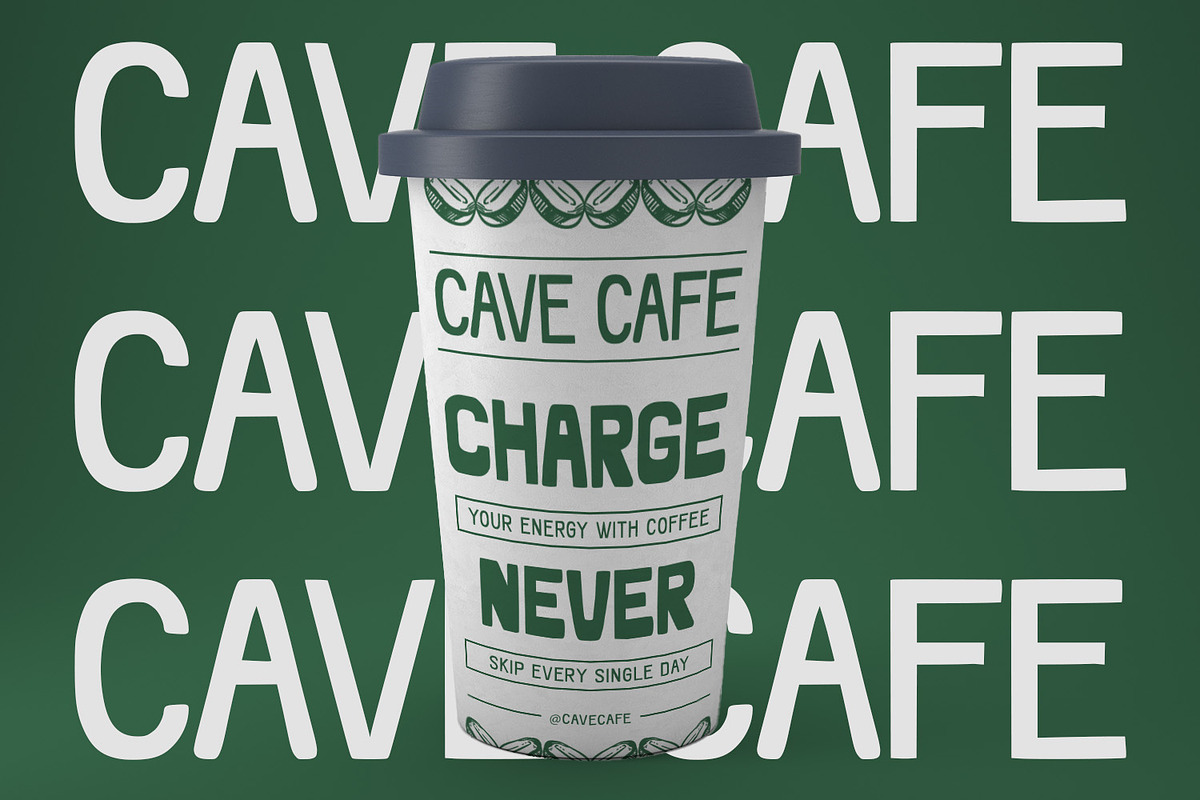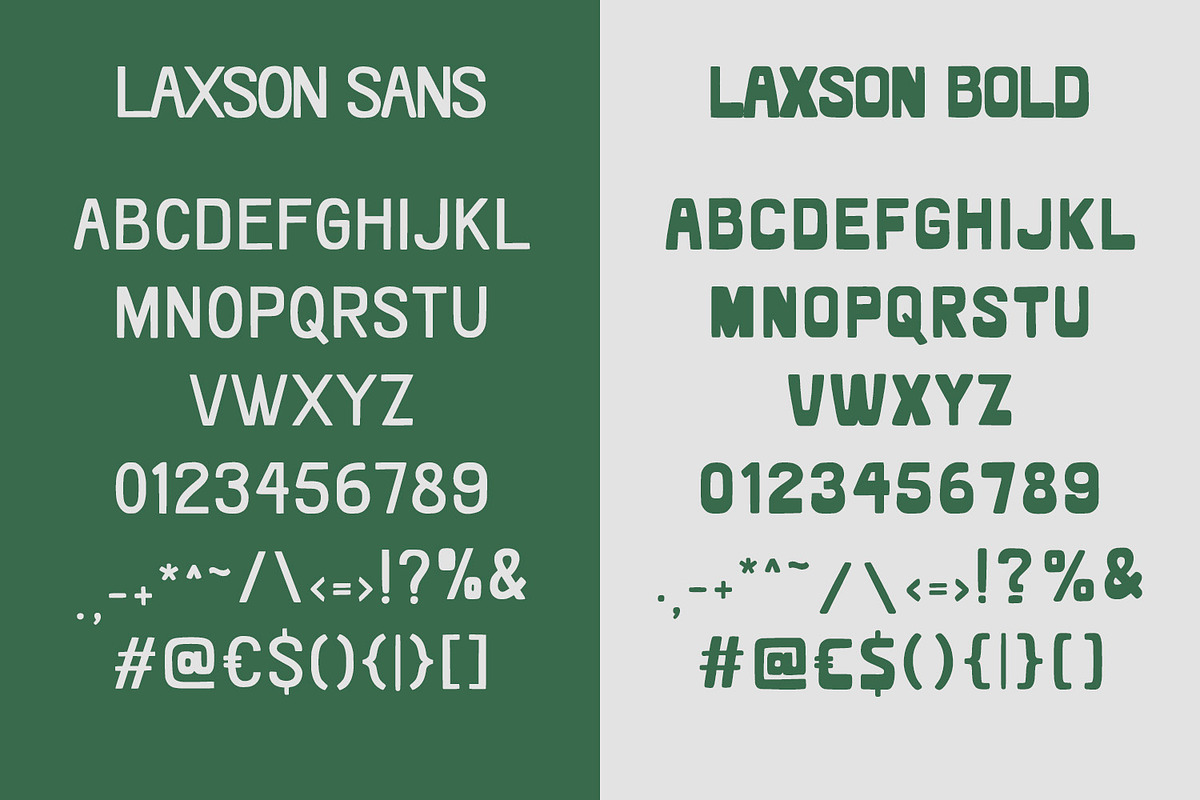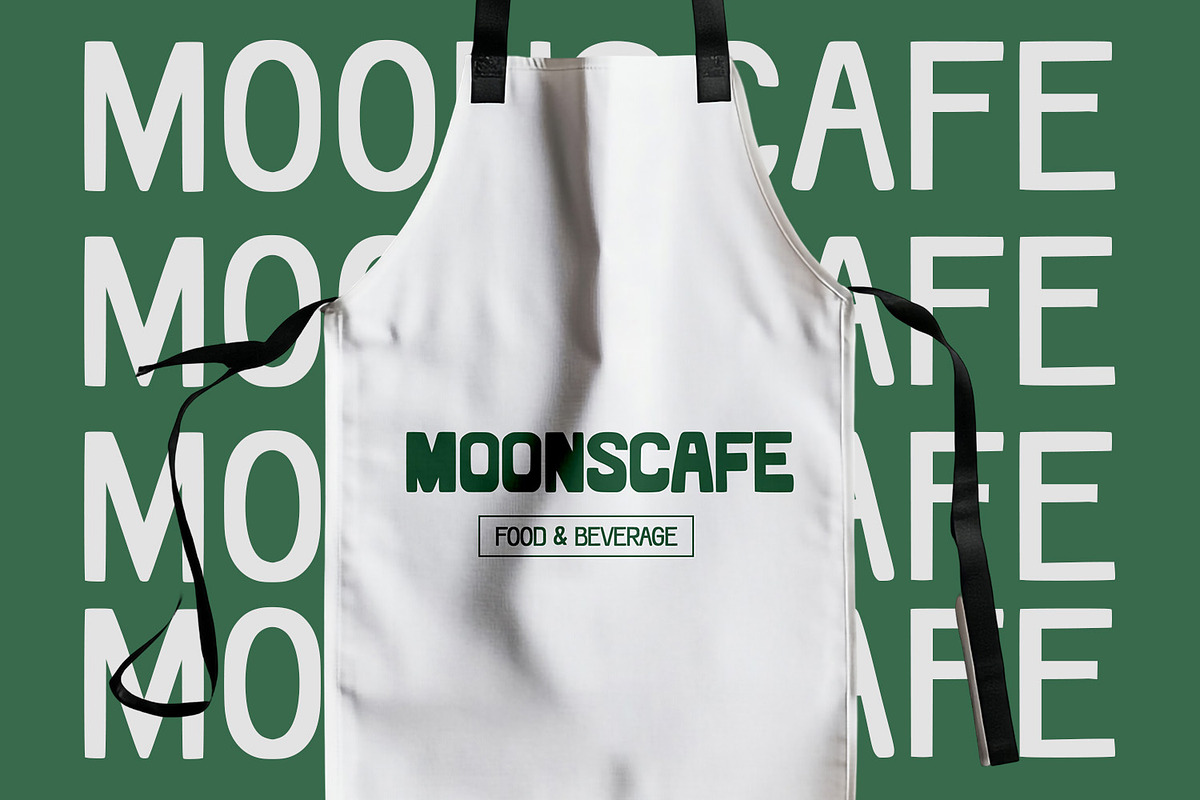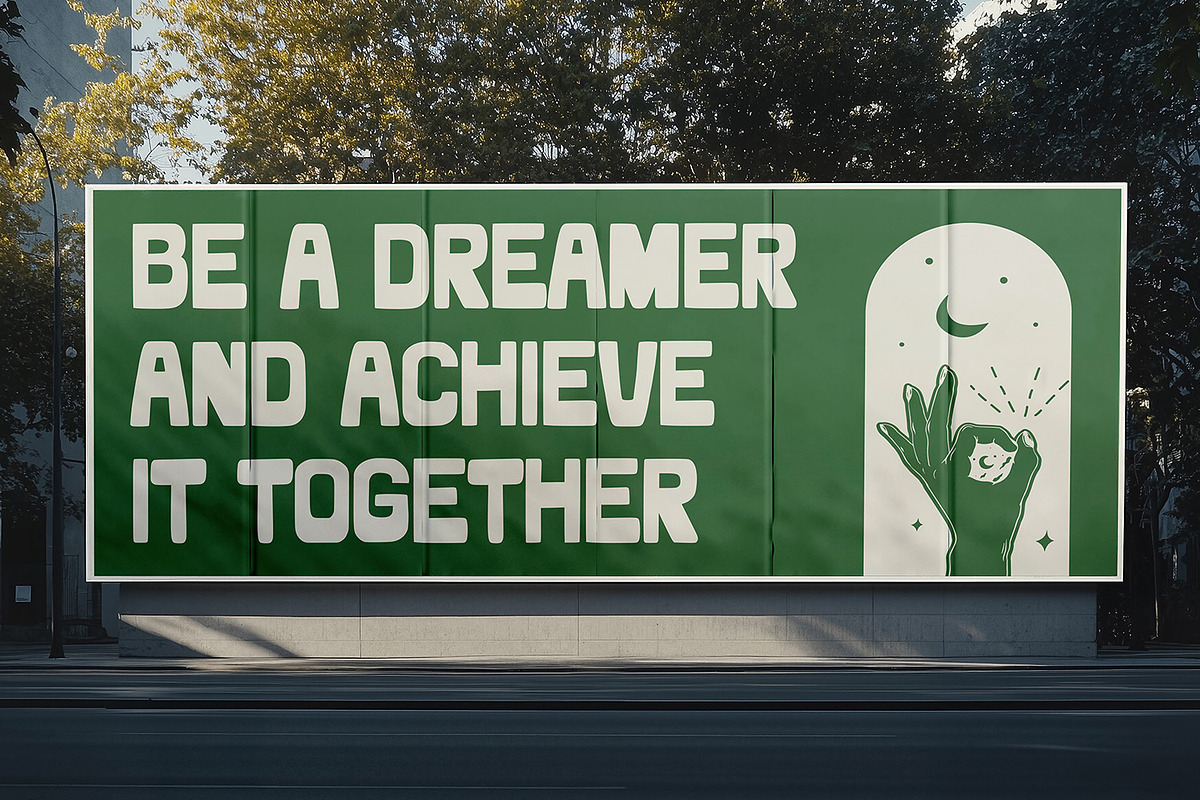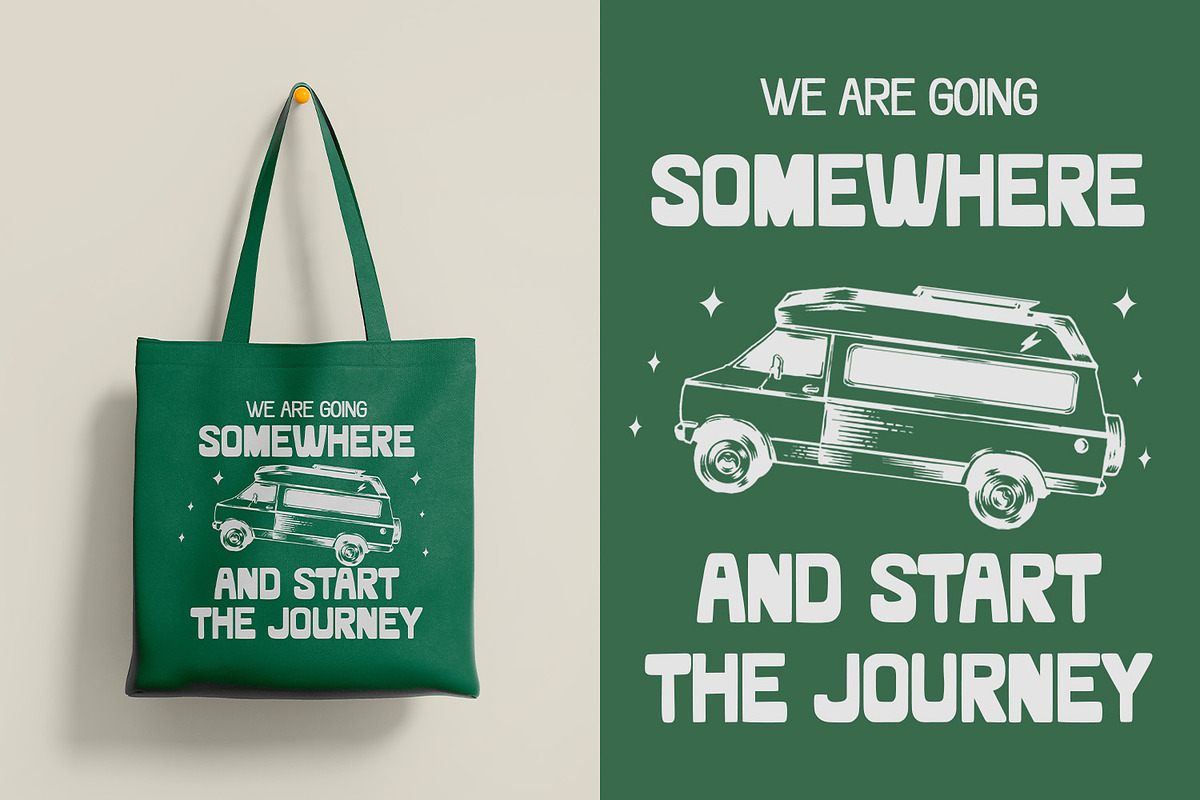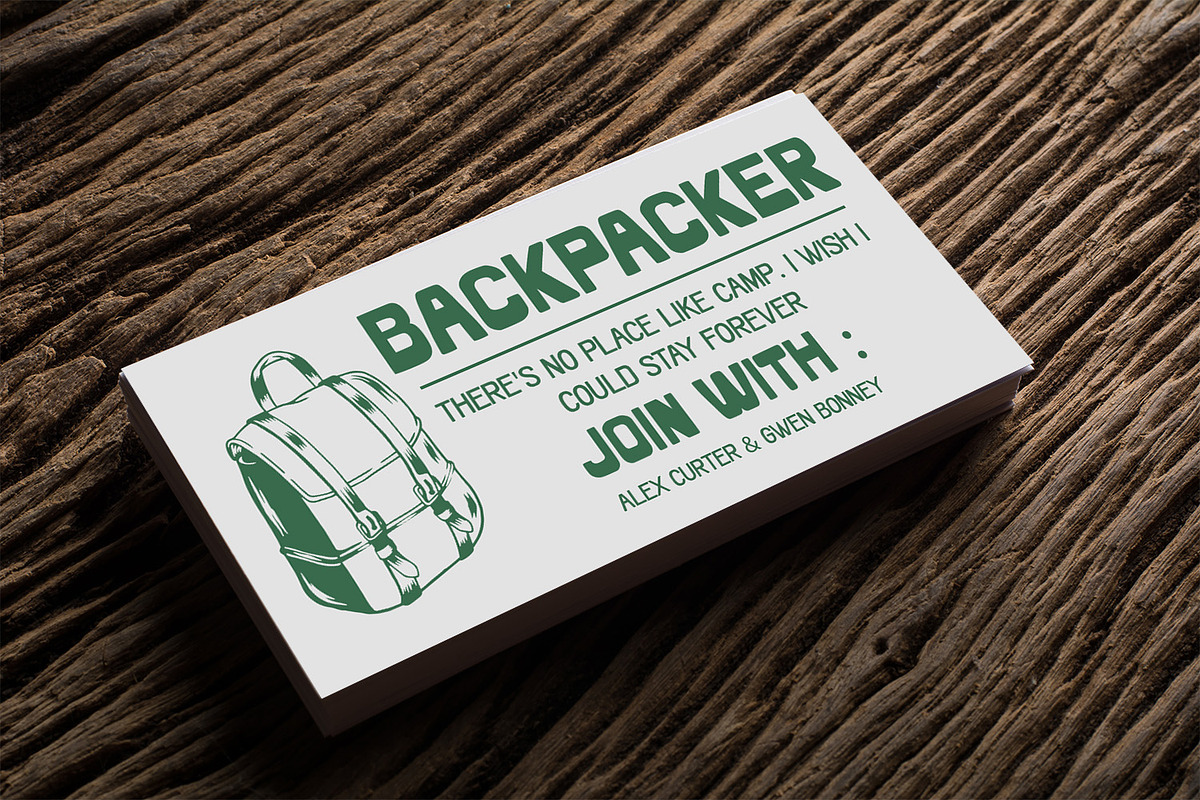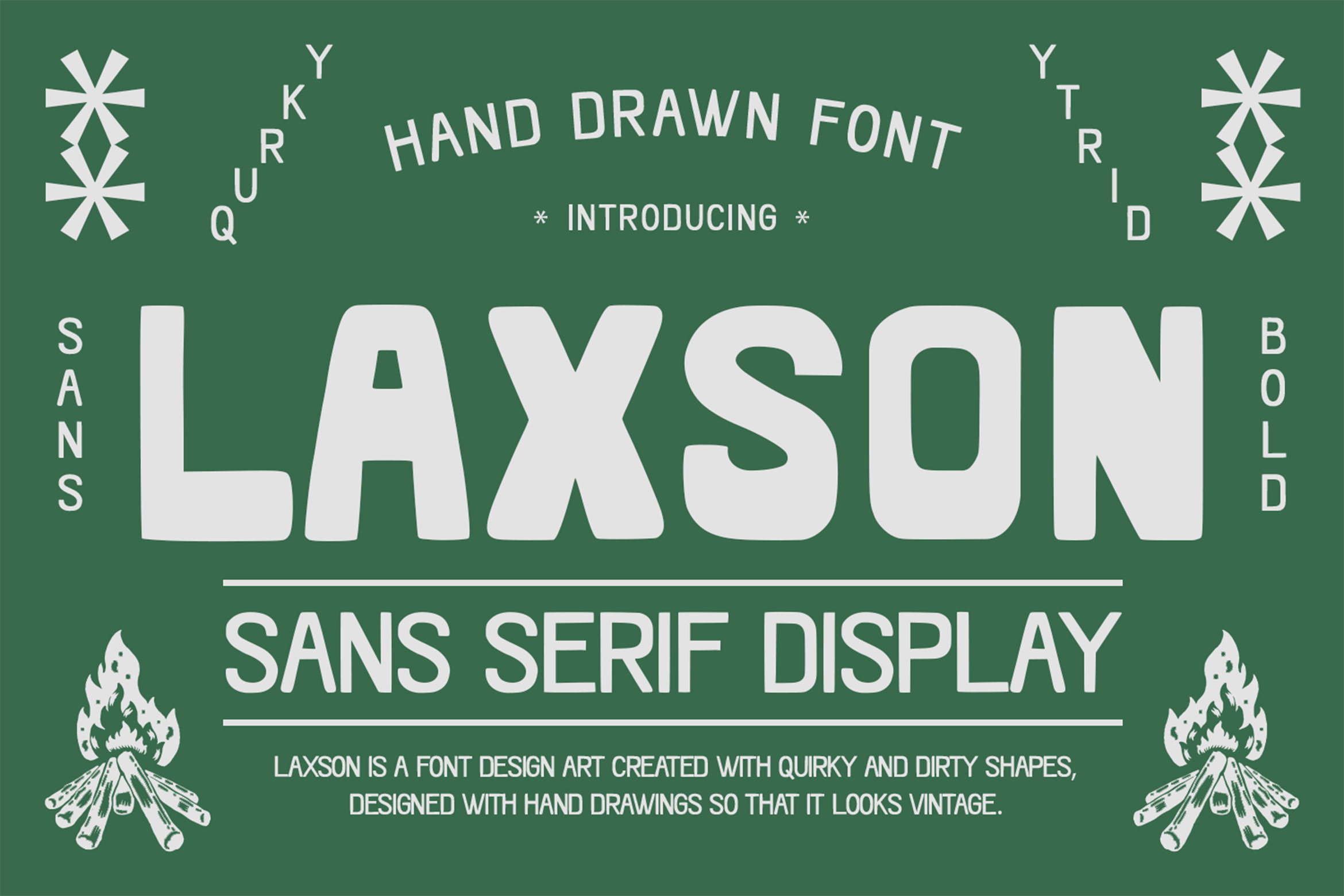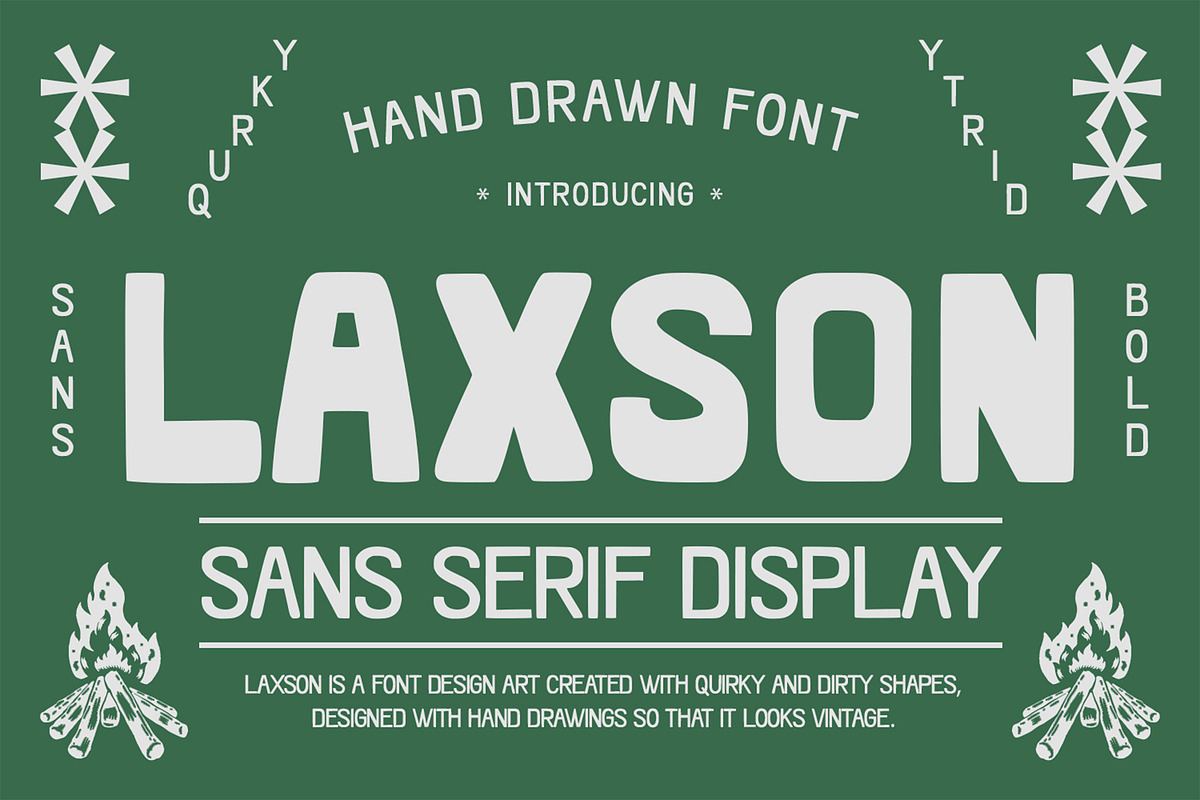
Laxson Typeface
Font Description: Laxson
Laxson is a vintage sans-serif hand-drawn font that blends the raw charm of mid-20th-century signage with the organic imperfections of hand-painted lettering. Inspired by the bold, no-nonsense typography of old storefronts and industrial labels, Laxson features uneven strokes, subtle ink bleeds, and a slightly weathered texture—as if each character was hastily brushed onto wood or metal.
With its rugged yet refined aesthetic, Laxson strikes a balance between utilitarian clarity and artisanal warmth. The font’s deliberate irregularities (like wobbled lines and skewed angles) mimic the human touch of a sign painter’s brush, while its clean sans-serif structure ensures legibility. Ideal for projects that demand authentic vintage grit, Laxson works equally well on packaging, posters, branding, or anything needing a "found in an old workshop" vibe.
### Key Features:
- Hand-drawn sans-serif with uneven weight distribution
- Vintage textures (subtle ink splatters, rough edges)
- Uppercase-centric with numerals and punctuation
- Multilingual support for broad usability
### Perfect For:
- Retro packaging (whiskey labels, coffee bags)
- Industrial branding (breweries, garages, barbershops)
- Vintage posters, editorial headers, or social media graphics
- Pair it with: A crisp modern sans (for contrast) or a script font (for nostalgic narratives).
Features : Uppercase and lowercase characters